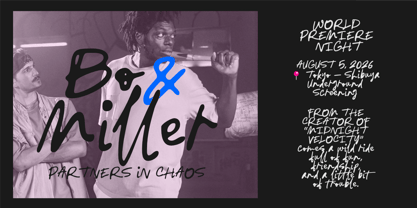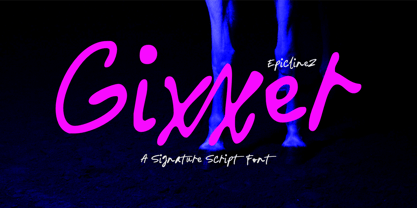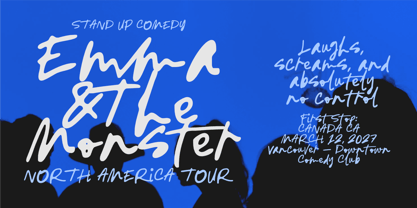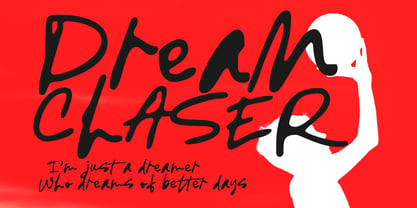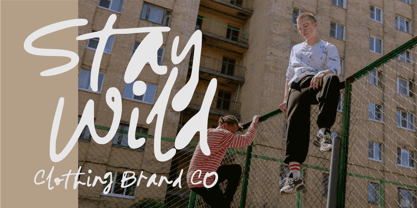
Gixxer
by Epiclinez
The Gixxer Font Family was designed by Aldy Sidik and published by Epiclinez. Gixxer contains 1 styles.
Gixxer is a bold and energetic freestyle signature font that captures the raw spirit of motion and urban expression. Designed with a natural handwritten flow, this script display typeface blends smooth curves with dynamic strokes—creating a look that feels both stylish and rebellious. With its loose, expressive letterforms and authentic signature style, Gixxer delivers a sense of movement in every word. It’s perfect for projects that need a personal touch with attitude—whether you're designing logos, branding, posters, social media graphics, or eye-catching thumbnails. Gixxer shines in street culture visuals and modern lifestyle branding. Its freestyle character makes every composition feel alive, fast, and unapologetically bold.